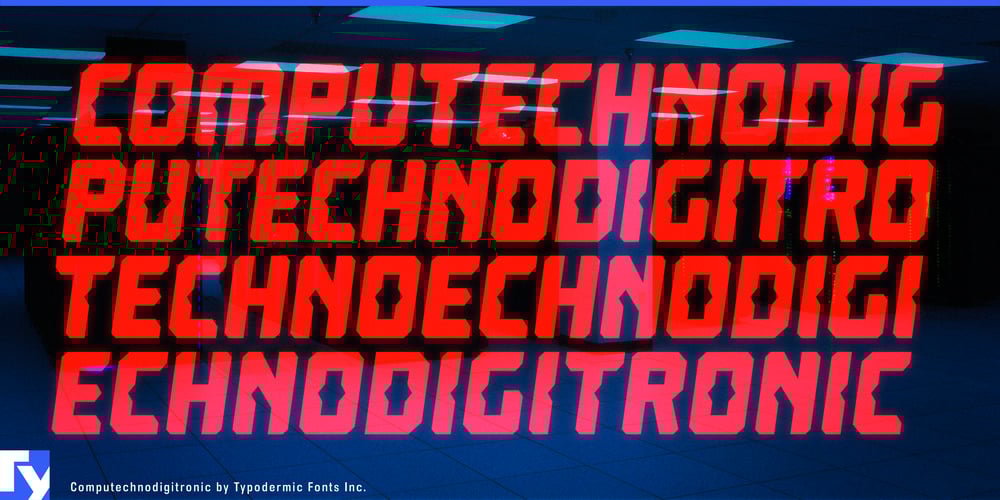
Computechnodigitronic Font Family was designed by Ray Larabie and published by Typodermic. Computechnodigitronic contains 1 styles and family package options. Step into the future with Computechnodigitronic, a typeface that brings the sleek aesthetics of 1980s sci-fi to life. This segmented LED/LCD display font seamlessly blends retro charm with modern design sensibility, creating a visual language that speaks volumes in the digital age.Computechnodigitronic’s meticulously crafted letterforms strike a perfect balance between futuristic appeal and crystal-clear legibility. Each character is precisely spaced, ensuring your message comes through with the clarity of a well-calibrated starship console. For those times when your design calls for vertical numeric displays, our monospaced numerals stand ready to create impeccable columns that would make any mission control center proud.Imagine your next project illuminated by Computechnodigitronic—website interfaces that glow with cutting-edge sophistication, app designs that transport users to a world of high-tech wonder, or print materials that command attention with their digital charisma. This typeface doesn’t just display information; it transforms it into a visual experience that captures the imagination and engages the viewer.Computechnodigitronic’s versatility extends beyond its aesthetic appeal. Its extensive character set supports a vast array of Latin-based European writing systems—from the fjords of Norway to the plains of Hungary, and from the coasts of Portugal to the steppes of Turkey. It even ventures into realms where Cyrillic-based languages flourish and where Vietnamese script tells its tales. Picture your message seamlessly transitioning across borders, as if transmitted through a global network of digital displays—each glyph a beacon of clear communication in our interconnected world.